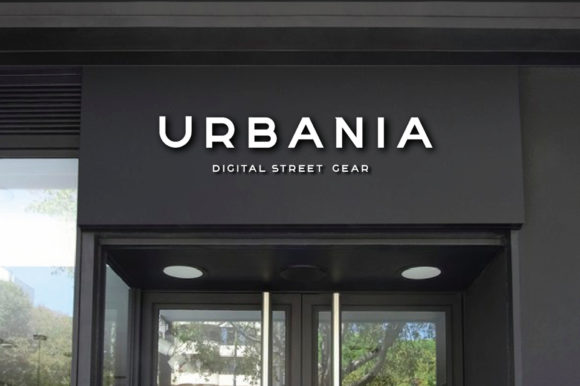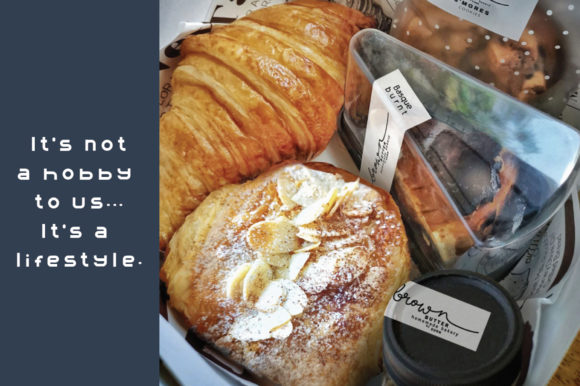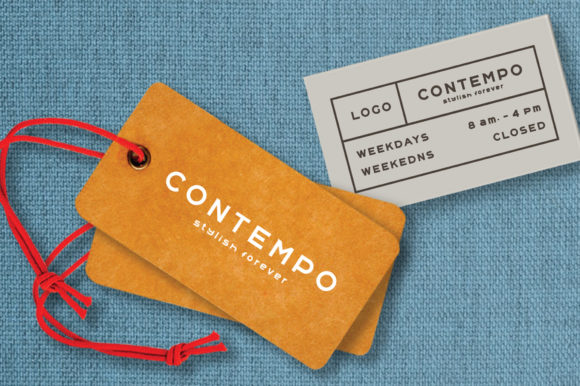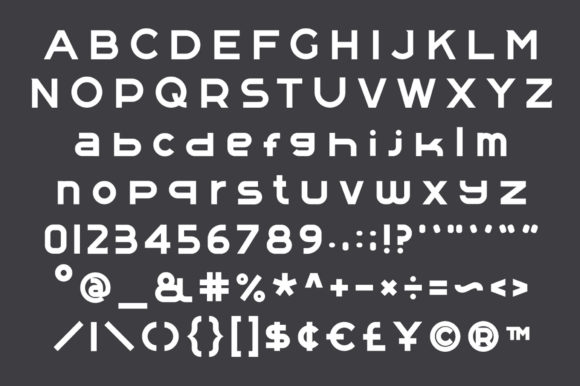
The Power of Contempo Font: A Designer’s New Best Friend
I still remember the frustration of working on a project, hours spent perfecting every detail, only to be held back by one thing: the font. My client wanted something bold, assertive, and unique, but I just couldn’t seem to find the right fit. That was until I stumbled upon Contempo Font. This bold, genuine, and assertive display font has been a game-changer for my design work, and I’m excited to share its awesomeness with you! 😊
An Honest Review of Contempo Font
- ✨ Bold and Assertive: Contempo Font makes a statement. Its bold design ensures your text doesn’t go unnoticed, making it perfect for headings, titles, and anywhere you want to draw attention.
- ✅ Versatile: Whether you’re working on web designs, business cards, or any other project that needs a unique touch, Contempo Font fits right in.
- 🌈 Highly Legible: Despite its boldness, the font remains highly legible, even at smaller sizes, which is a huge plus for any design project.
While Contempo Font is amazing, it’s not without its quirks. For instance:
- 🤔 Limited Use Cases: Given its bold nature, Contempo Font might not be the best choice for body text or extensive reading materials. It’s best used sparingly for titles or headings.
- ⚠️ Glyphs and OpenType Features: While Contempo Font supports OpenType features, some users might find the glyphs and stylistic alternates a bit limited compared to other display fonts.
Exploring OpenType Features, Glyphs, and Stylistic Alternates
The Backstory of Contempo Font
Contempo Font was designed with the modern designer in mind. Its creators aimed to produce a font that was not only bold and assertive but also versatile and legible. Inspired by contemporary design trends and the need for clear communication, Contempo Font was crafted to make a statement in any project.
Q: Is Contempo Font suitable for body text?
A: While Contempo Font is highly legible, its bold nature makes it more suitable for headings and titles. For extensive reading materials, a lighter font might be more appropriate.
Q: Does Contempo Font support OpenType features?
A: Yes, Contempo Font supports OpenType features, including glyphs and stylistic alternates, allowing for more creative flexibility in your designs.